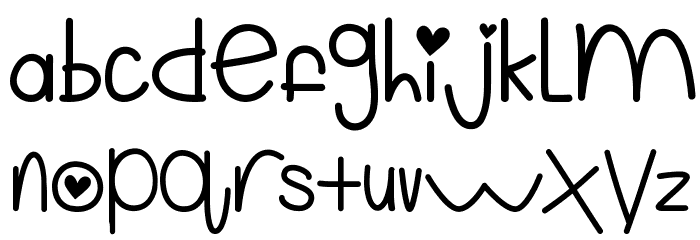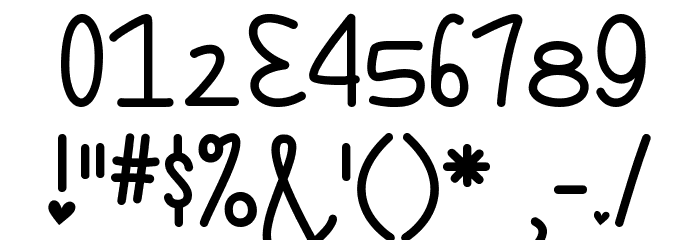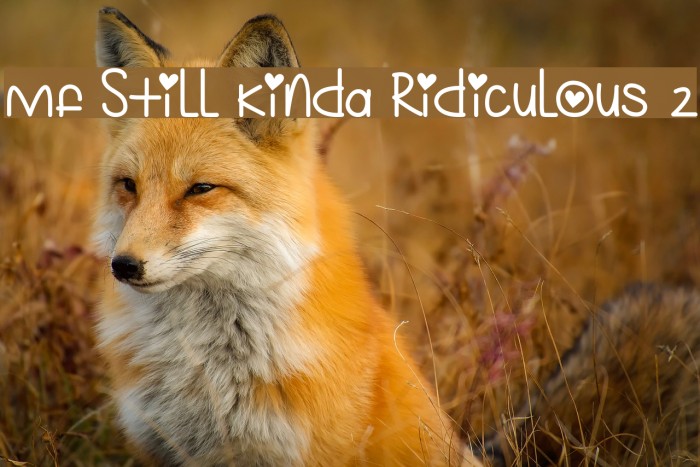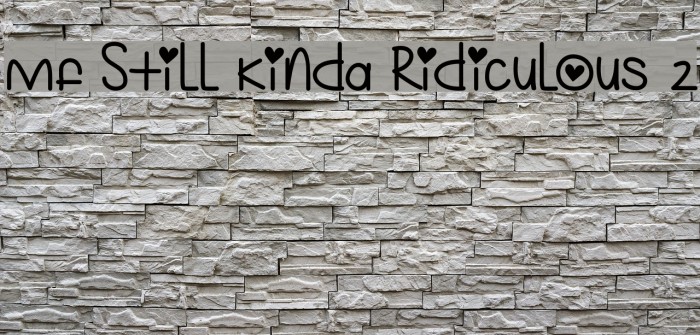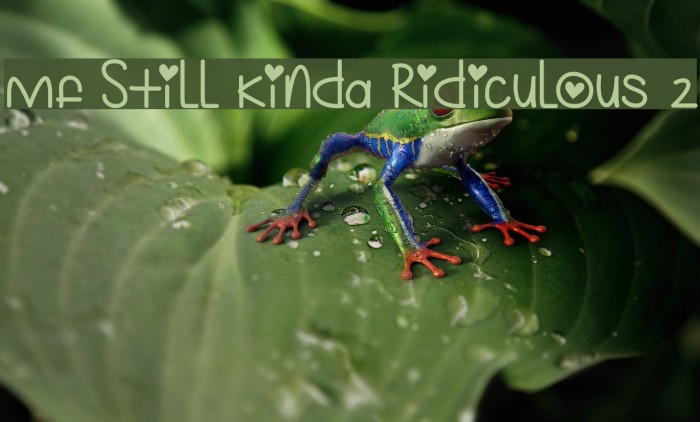
Mf Still Kinda Ridiculous 2 Font
This playful and whimsical font features a hand-drawn, casual style with unique character elements such as hearts and stars integrated into the letters. The uppercase and lowercase letters exhibit a consistent, rounded form with a slightly uneven baseline, adding to its charm. The numbers and special characters maintain the same playful aesthetic, making it suitable for creative and informal designs. Its quirky and fun appearance makes it ideal for projects that aim to convey a sense of joy and creativity.
A playful, hand-drawn font with whimsical elements and a casual style.
- Proposed Projects: Ideal for children's books, greeting cards, playful branding, and creative posters.